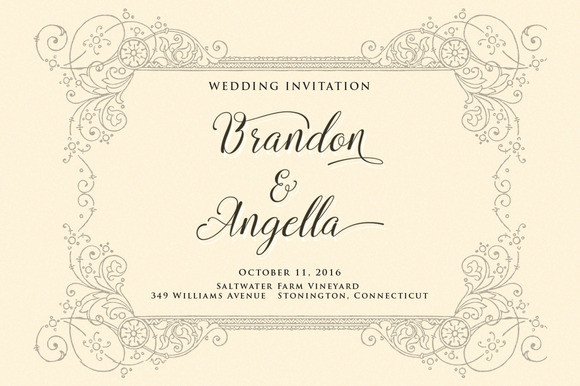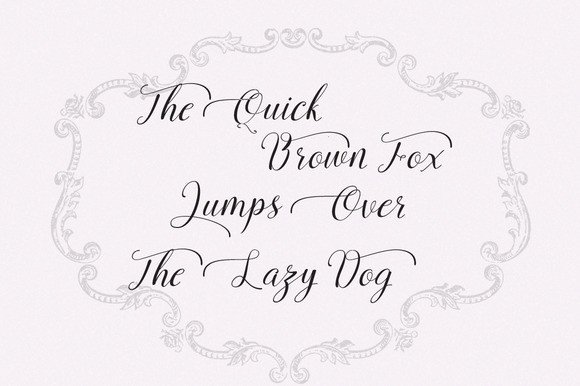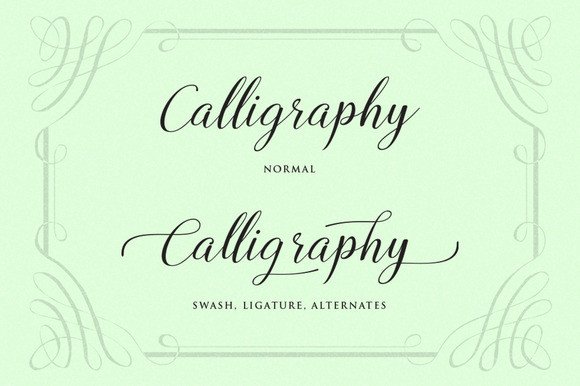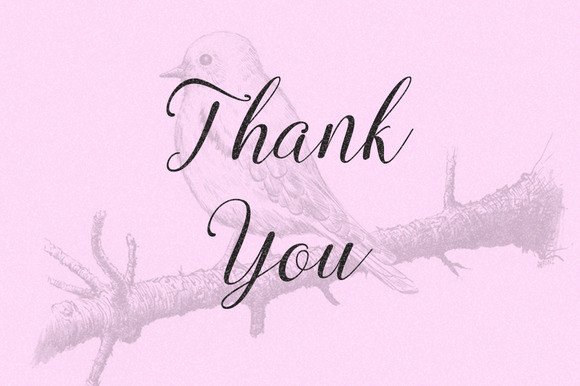
Introduction to Octavina Font
Have you ever found yourself in the midst of a creative project, desperately searching for the perfect font to bring your vision to life? You’ve spent hours scrolling through font libraries, only to end up with something that’s just ‘okay.’ Well, we’ve got some good news for you – your search is over. Introducing the stunning Octavina Font, a beautifully crafted handwritten script font that’s sure to elevate your designs to new heights.
| 📌 Product Name | Octavina Font |
| 👤 Author | Ian Mikraz |
What sets Octavina apart from the rest is its impressive collection of alternates, carefully designed to give you the flexibility you need to create unique and captivating designs. With these alternates split across different fonts, you can effortlessly switch between styles, ensuring your creative project always looks polished and professional.
Whether you’re a seasoned designer or just starting out, the Octavina Font is an invaluable resource that’s sure to become a staple in your design toolkit. With its high-quality design and transparent background, you can trust that your work will stand out from the crowd. And the best part? It’s available for free download, making it an accessible and affordable addition to any creative arsenal.
Key Features of Octavina Font
- Unique, elegant design with a transparent background, ideal for creative projects
Honest Review: Octavina Font
As a designer, I’ve had the chance to work with a wide range of fonts, but Octavina Font has truly stood out to me. I love how it offers a free download, making it an excellent design resource for anyone looking to elevate their creative project.
One of the standout features of the Octavina Font is its high quality. The font is incredibly detailed, with a beautiful, elegant aesthetic that’s perfect for any design project. I also appreciate how versatile it is – it works beautifully with both light and dark backgrounds, and even looks great with a transparent background when paired with a clever design.
- High-quality design with incredible detail
- Perfect for creative projects, from branding to typography
- Works well with both light and dark backgrounds
⚠️ However, one of the limitations I’ve found is that the font can be a bit difficult to read at very small sizes. Additionally, while it’s free to download, some of the more exotic versions of the font may require a purchase.
Overall, I’m thoroughly impressed with the Octavina Font. It’s a fantastic addition to any designer’s toolkit, and I’m excited to see how it can be used in future creative projects.
Tips for Getting the Most Out of Octavina Font
For optimal results, use the Octavina Font in combination with other design elements, such as images and textures. Experiment with different font sizes, colors, and arrangements to achieve a unique look.
The Octavina Font is ideal for various creative projects, including:
Logo design
Branding materials
Infographics
Brochures and flyers